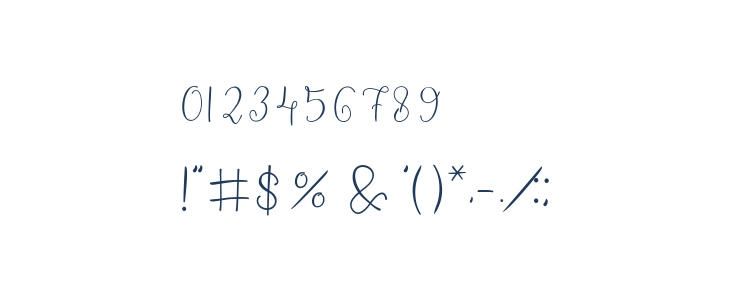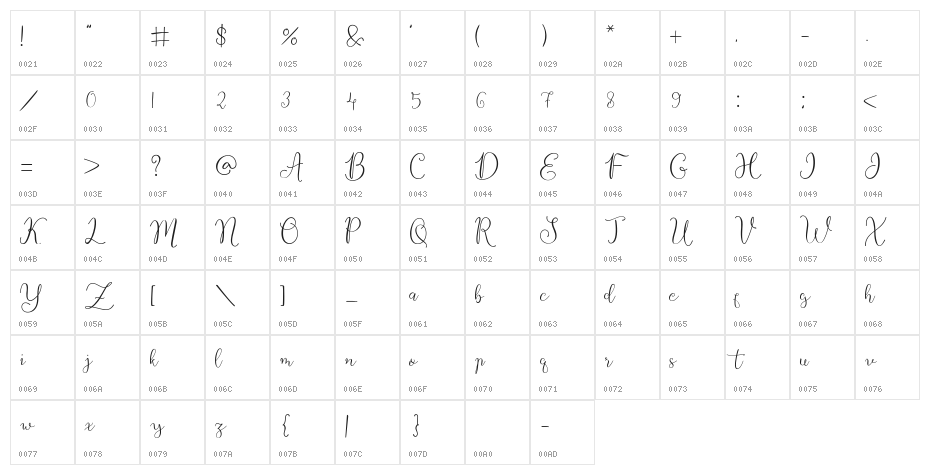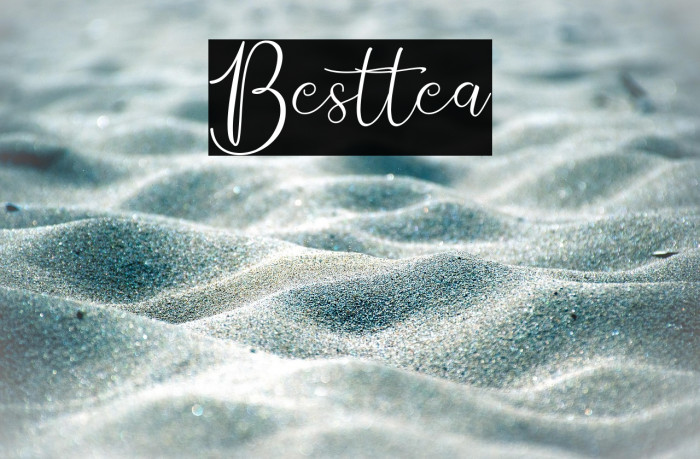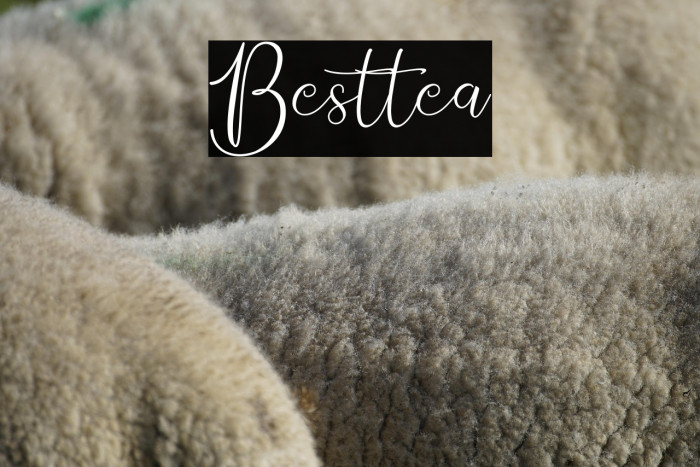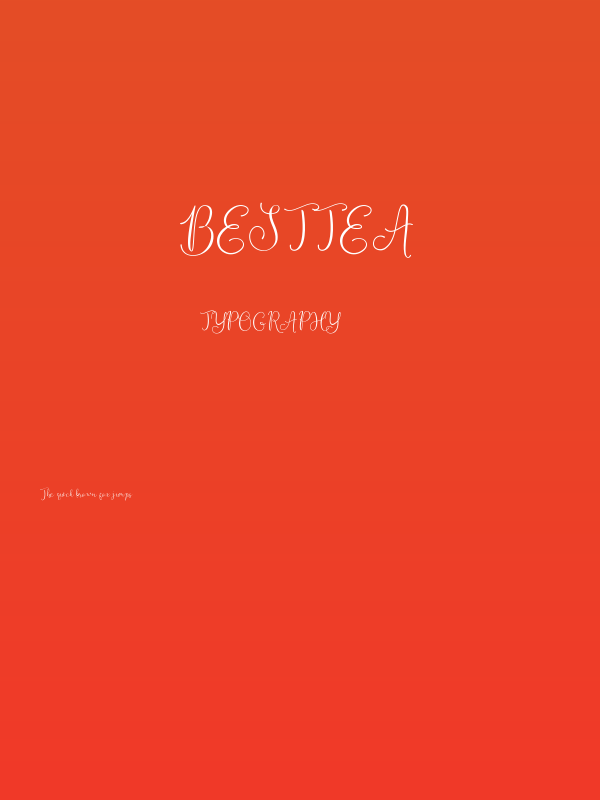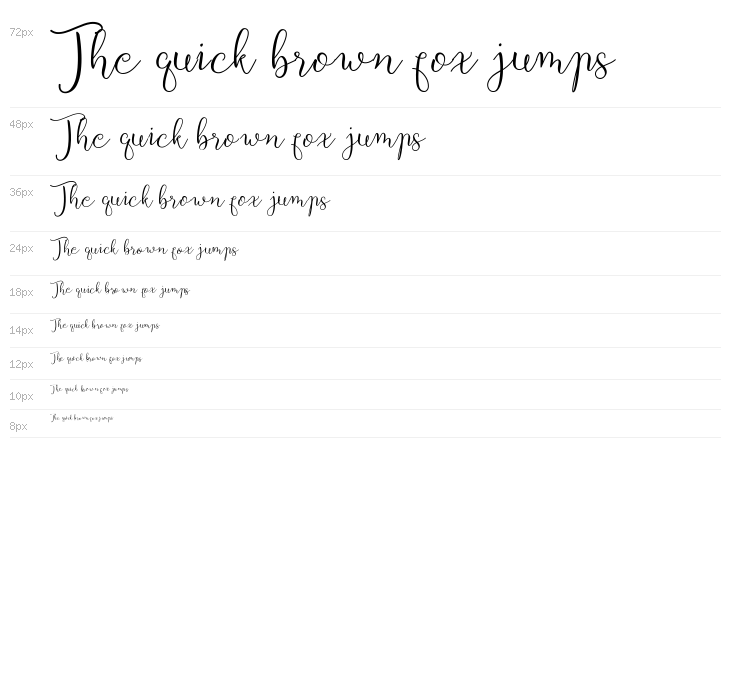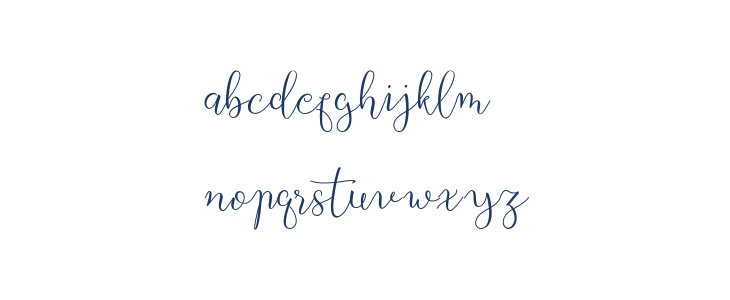
Besttea Font
Besttea Description
This elegant script font features a flowing, cursive style with delicate loops and swashes, giving it a sophisticated and graceful appearance. The uppercase letters are ornate, with extended ascenders and descenders that add a touch of flair. The lowercase letters maintain a consistent flow, enhancing readability while retaining an artistic quality. Numbers and special characters are designed to complement the overall aesthetic, ensuring a cohesive look across all text. The font's thin strokes and high contrast between thick and thin lines contribute to its refined and stylish character, making it suitable for formal and decorative applications.
| Proposed Projects | Ideal for wedding invitations, elegant branding, greeting cards, and high-end product packaging. |